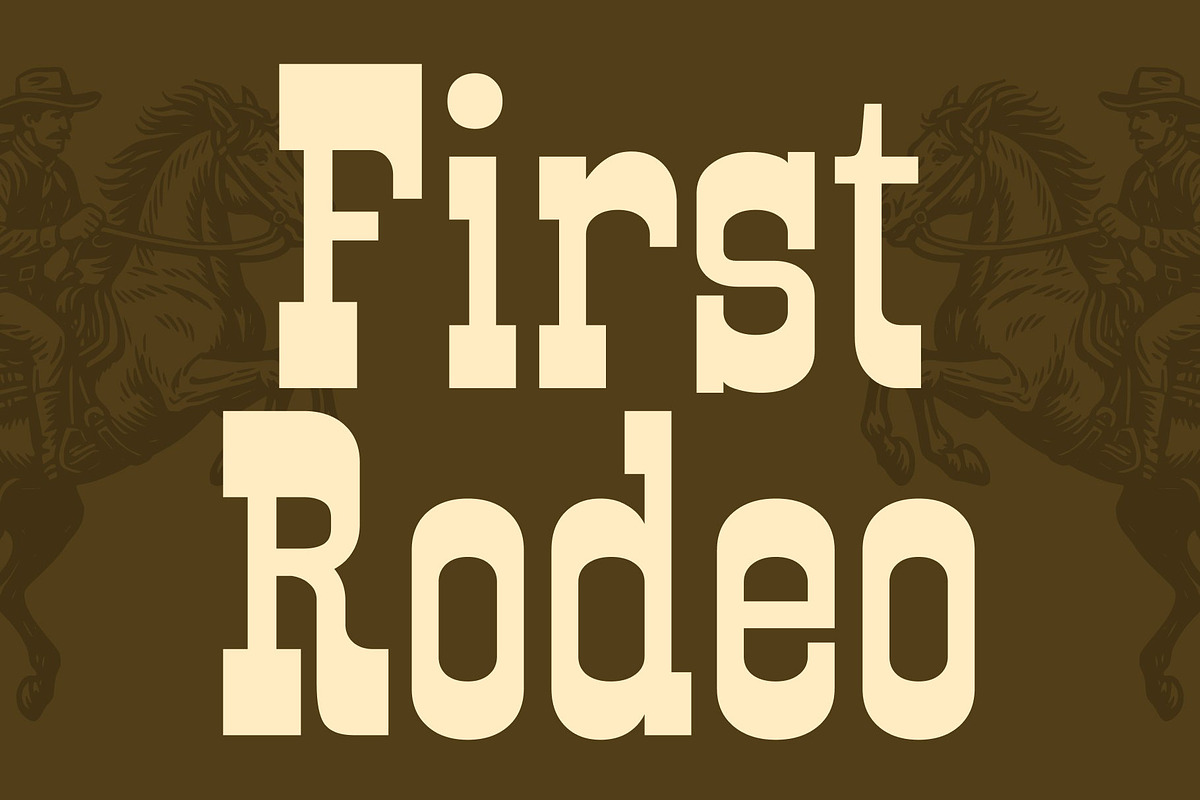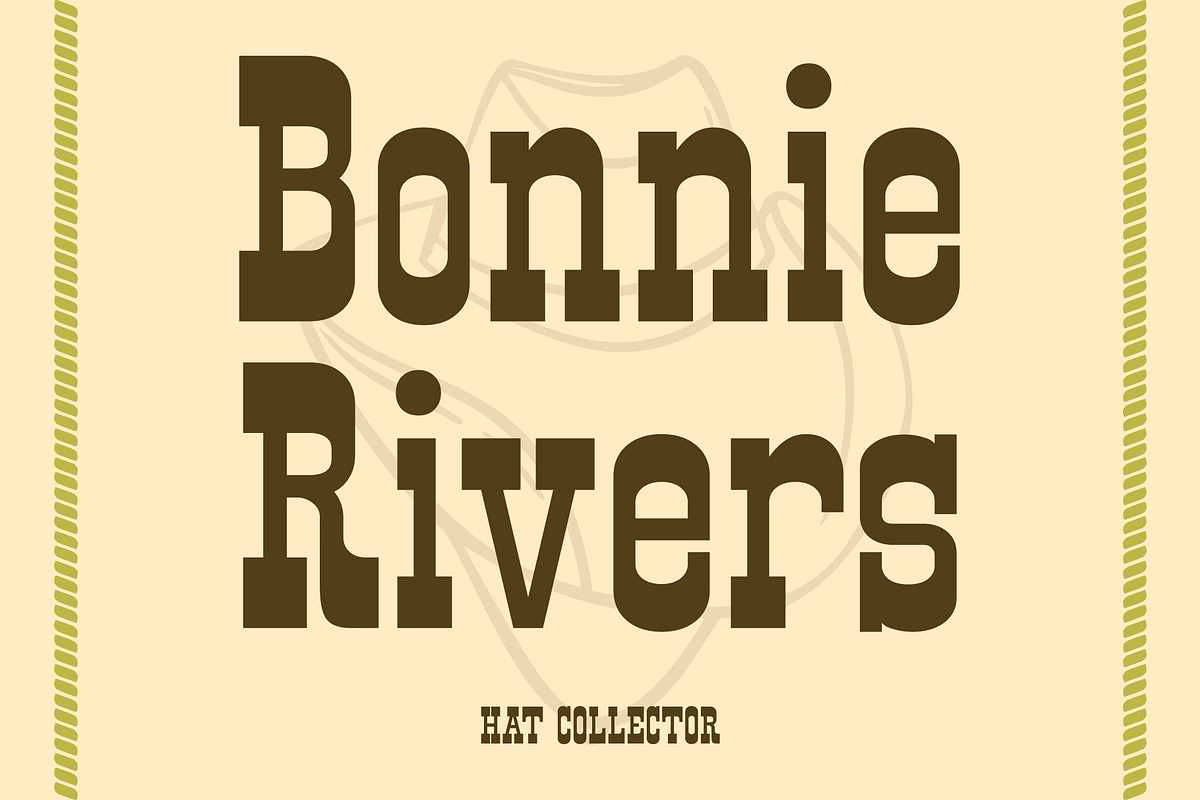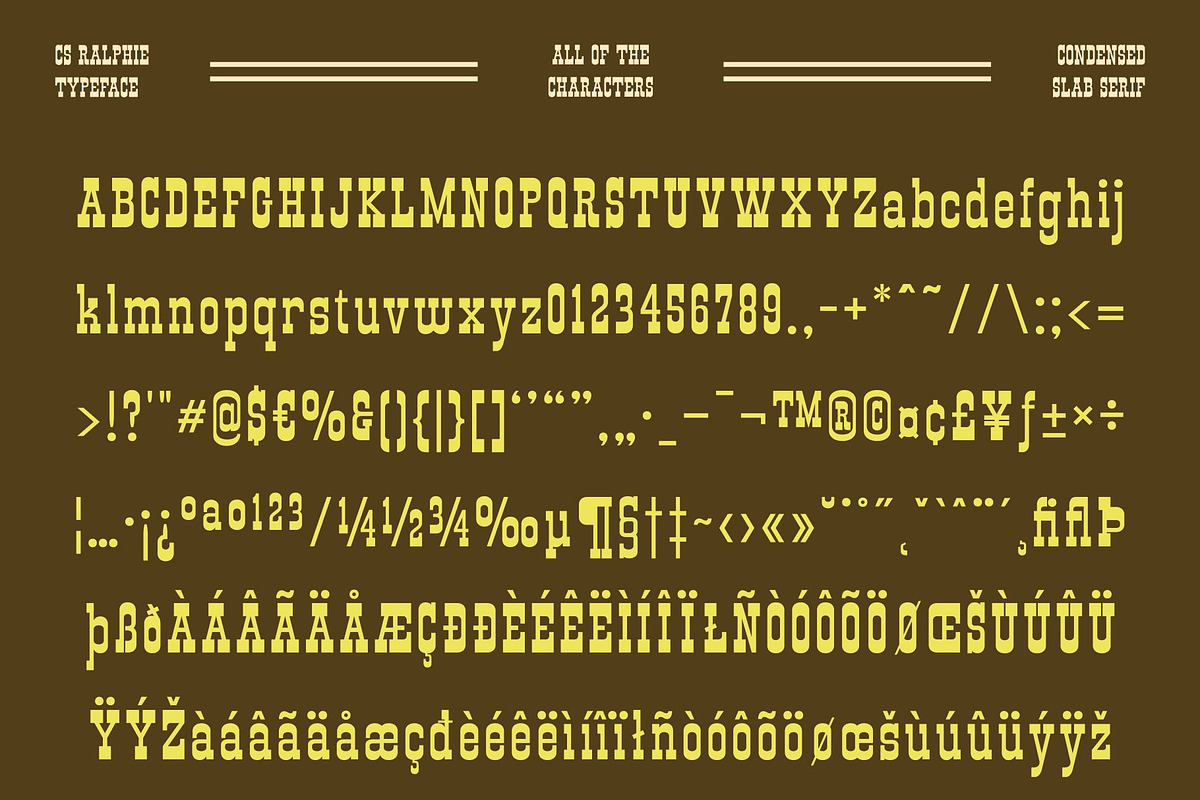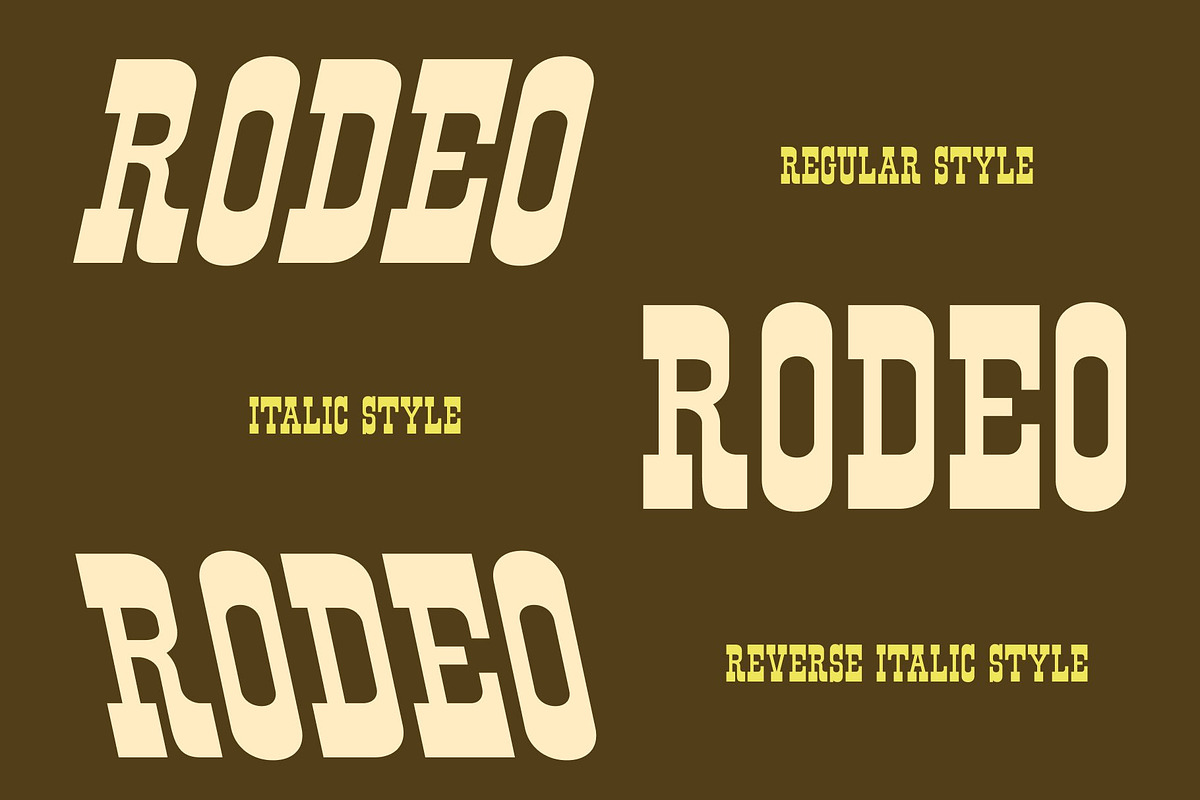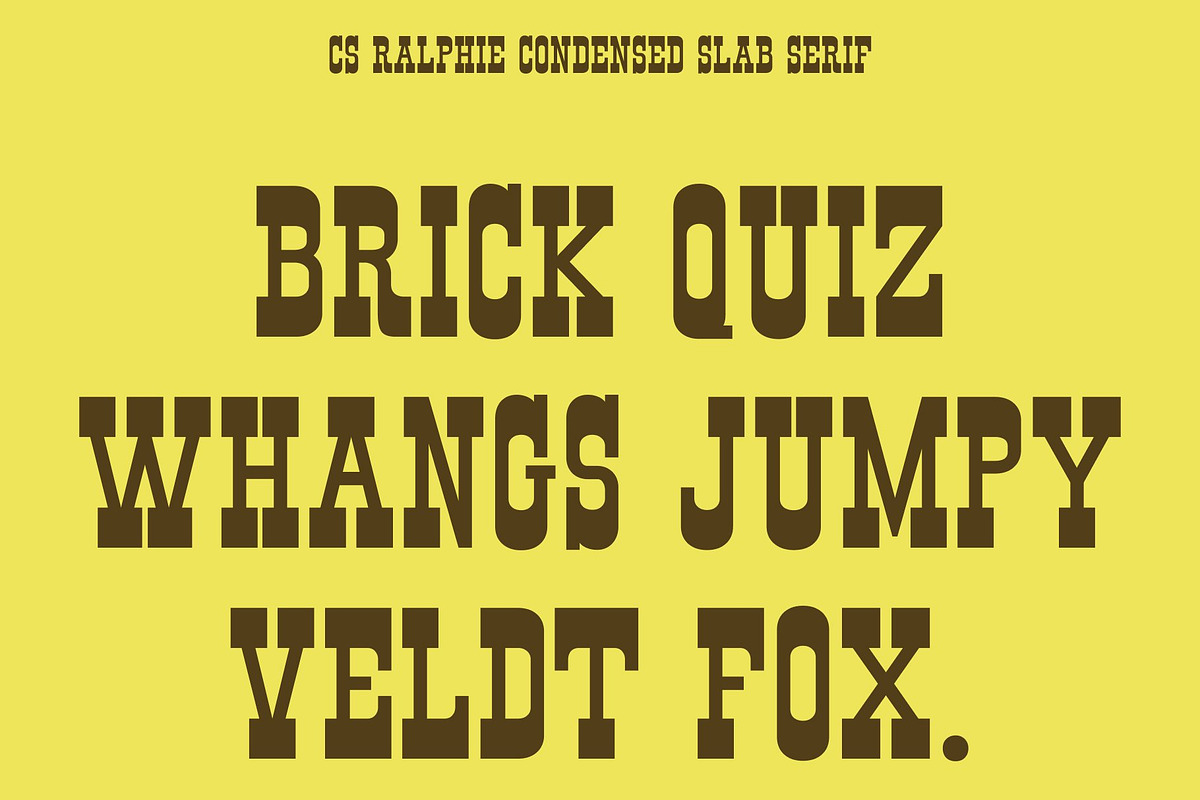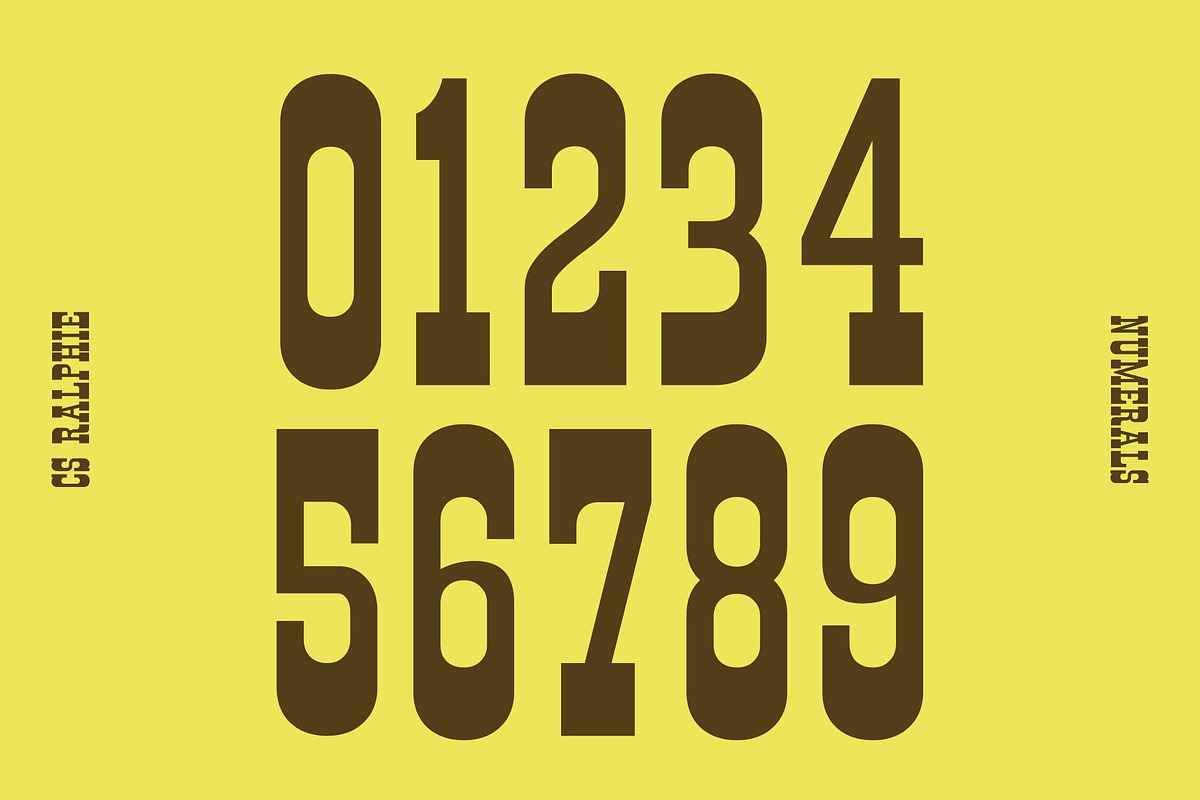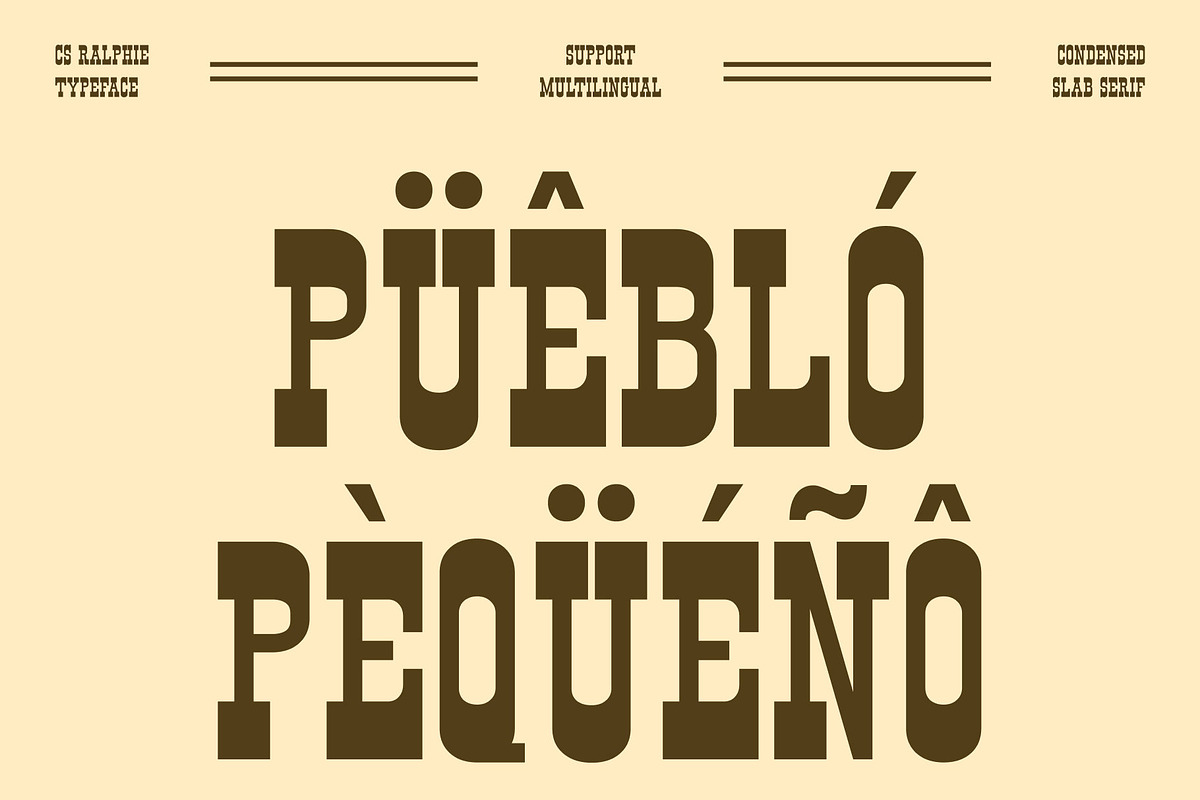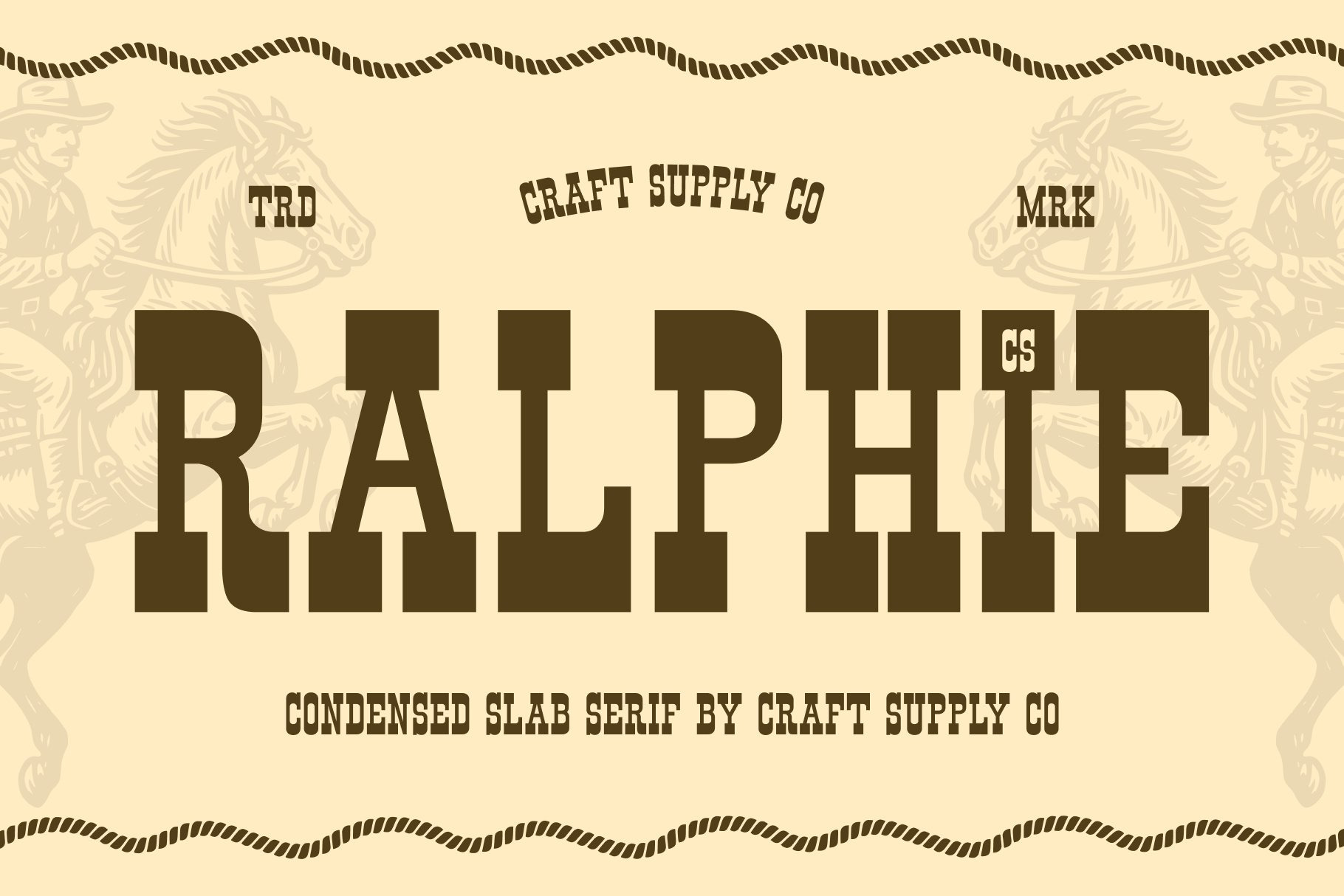
CS Ralphie – Western Display Font
CS Ralphie – Western Display Font with Slab Serif and Reverse Contrast
Character Rooted in Old Western Spirit This is a striking display font that channels the raw spirit of the old Western era, inspired by vintage frontier signage, saloon posters, and rugged hand-painted lettering. Its strong slab serif construction delivers a solid, grounded presence, while the reverse contrast adds a distinctive visual twist that immediately sets it apart.
Reverse Contrast for Dramatic Visual Impact The reverse contrast design gives this font a dynamic rhythm, placing emphasis where the eye least expects it. This unexpected weight distribution creates a bold and memorable silhouette, enhancing readability while injecting personality into every word. The contrast feels dramatic yet controlled, making the font visually engaging without sacrificing clarity, perfect for headlines and statement typography.
Slab Serifs with Rugged Authority This font’s slab serifs reinforce its western identity, delivering a sense of durability and strength reminiscent of wooden signboards and iron-forged lettering. These sturdy serifs anchor each character firmly, giving the font a commanding presence that feels both nostalgic and powerful.
Perfect for Vintage, Western, and Branding Designed for maximum impact, this font excels in posters, branding, packaging, logos, and vintage-themed projects. Whether used for western-inspired branding, music artwork, event promotions, or editorial headlines, this font brings authentic western flair and cowboy grit to any design, making every message feel bold, adventurous, and unforgettable.
- CS Ralphie Regular
- CS Ralphie Italic
- CS Ralphie Reverse Italic